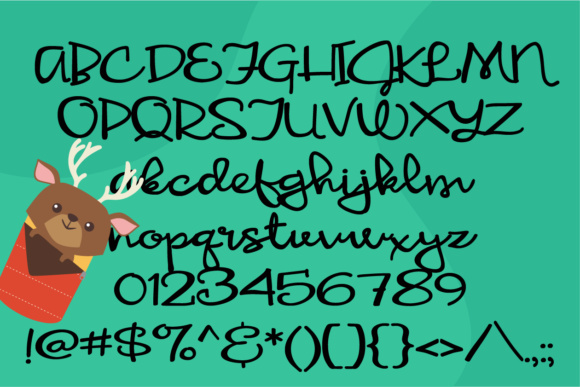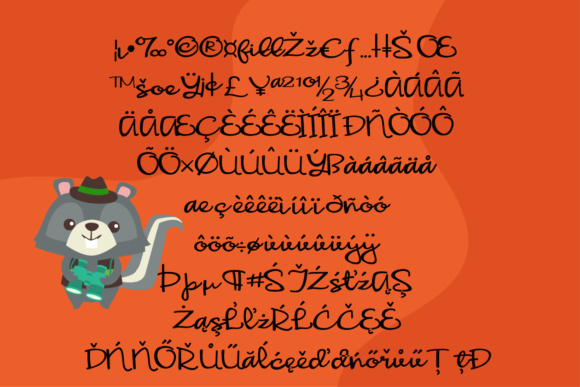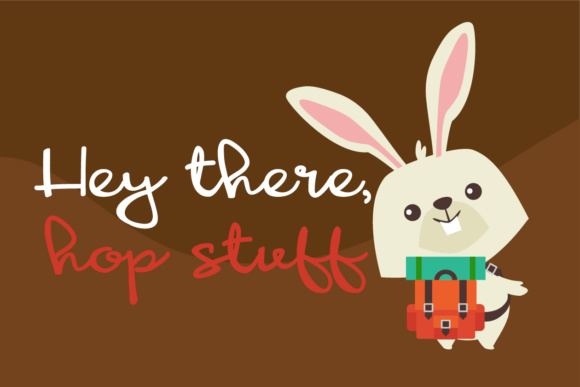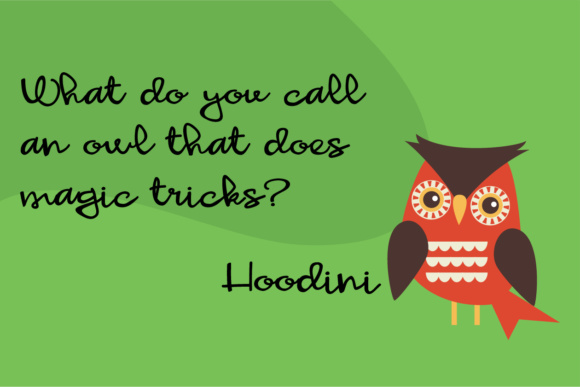
HomeScript FontsZP Schnugguns Font Script Fonts ZP Schnugguns Font FacebookXPinterestWhatsApp ZP Schnugguns Font Poster 2 ZP Schnugguns Font Poster 3 ZP Schnugguns Font Poster 4 ZP Schnugguns Font Poster 5 About ZP Schnugguns Font This hand-written script is a cute upright cursive with a bit of whimsical flair. DOWNLOAD ON CREATIVE FABRICAThis font is sold and delivered by Creative Fabrica. Font Canyon may earn a commission if you buy through this link. People also explored Baligate Font Vestival Font Raspberry Font Duo Walladinalkhafin Font Thanlight Font Grace Lotus Mandala Monogram Font Love Monday Font Quizy Font Alfa Alfa Font 308 0 TagsZP Schnugguns Font Previous articlePN Ski-Doozy and Ski-Dazy Font Duo FontNext articleZP Beastly Gorgioso Font LEAVE A REPLY Cancel reply Comment: Please enter your comment! Name:* Please enter your name here Email:* You have entered an incorrect email address! Please enter your email address here Website: Save my name, email, and website in this browser for the next time I comment. Personal Use Free Bahjera Personal Use Free Read more about this font Austins Personal Use Free Read more about this font Latifah Personal Use Free Read more about this font Bukhari Script Personal Use Free Read more about this font BLOG Elegant Wedding Invitation Fonts – Handwritten & Script Fonts Elegant Wedding Invitation Fonts Your wedding day is one of the most important moments of your life, and every detail matters—including your invitation design. Our... Using Fonts in Digital Marketing: Tips to Strengthen Your Brand Identity Free vs Paid Fonts: Why Investing in Premium Fonts Is Worth It Best Fonts for T-Shirt Design – Top 2025 Picks